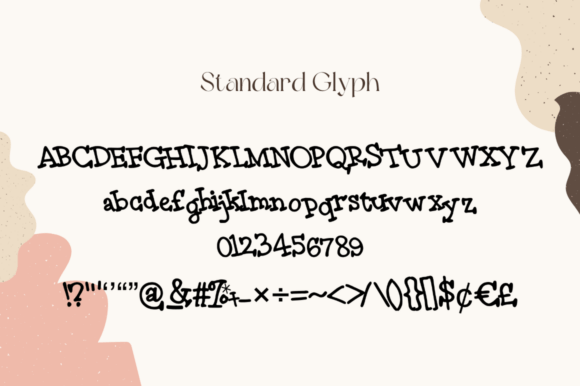
Backpack Notes Font
Backpack Notes is a whimsical and wobbly display font with a playful, cartoon-inspired look. Its hand-drawn, bouncy style adds a lighthearted charm, making it ideal for children’s books, posters, school projects, crafts, and other creative work that needs an extra splash of fun.